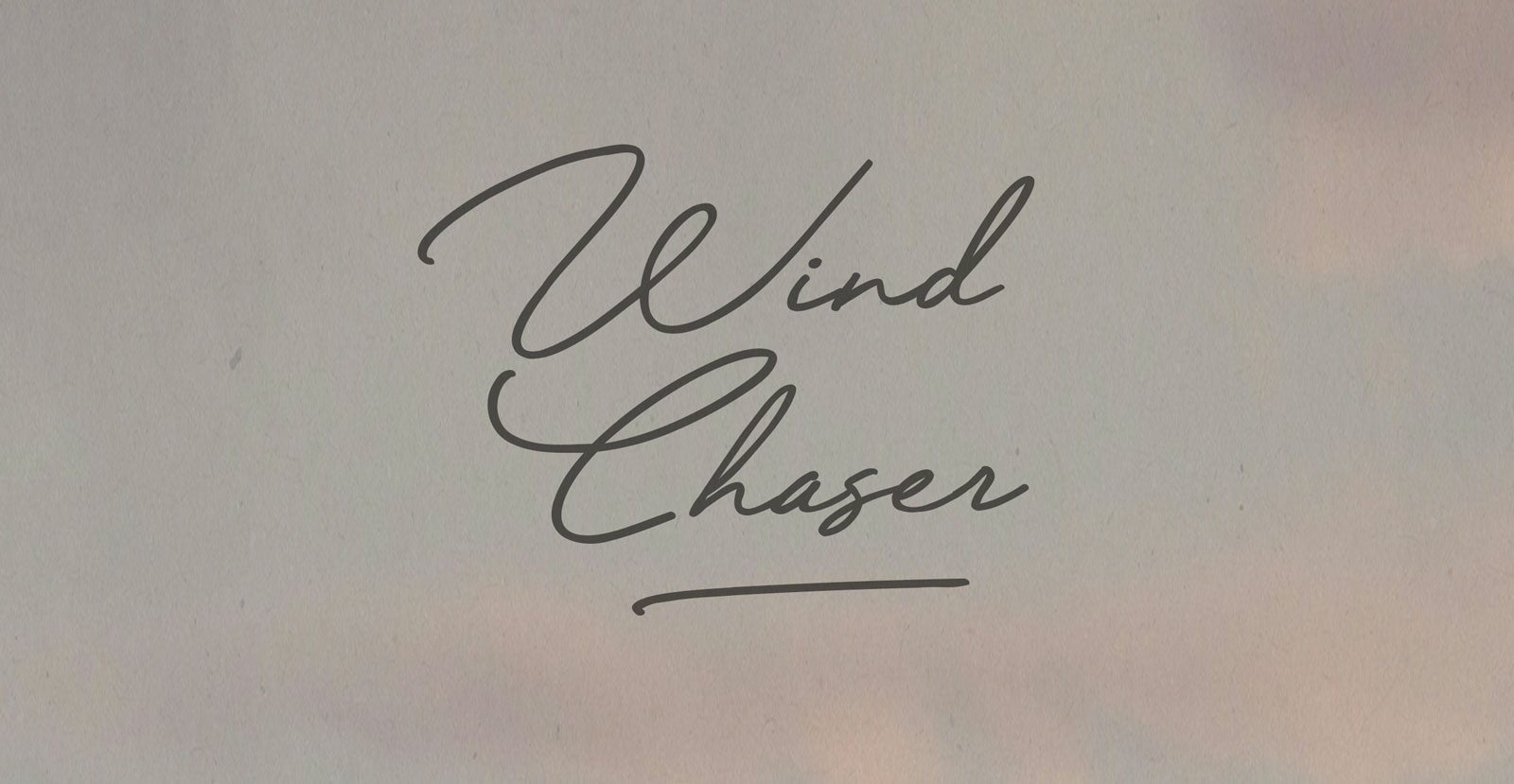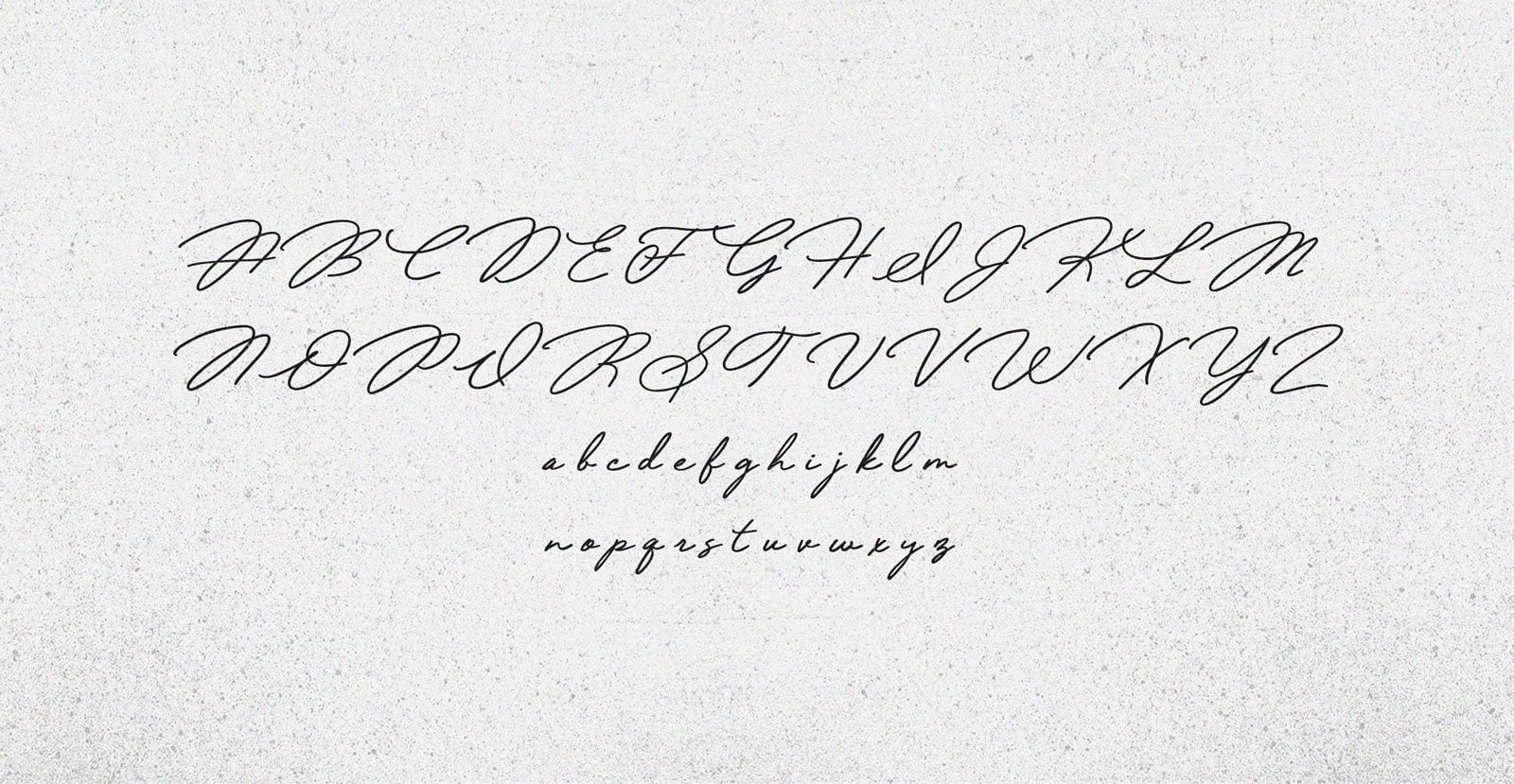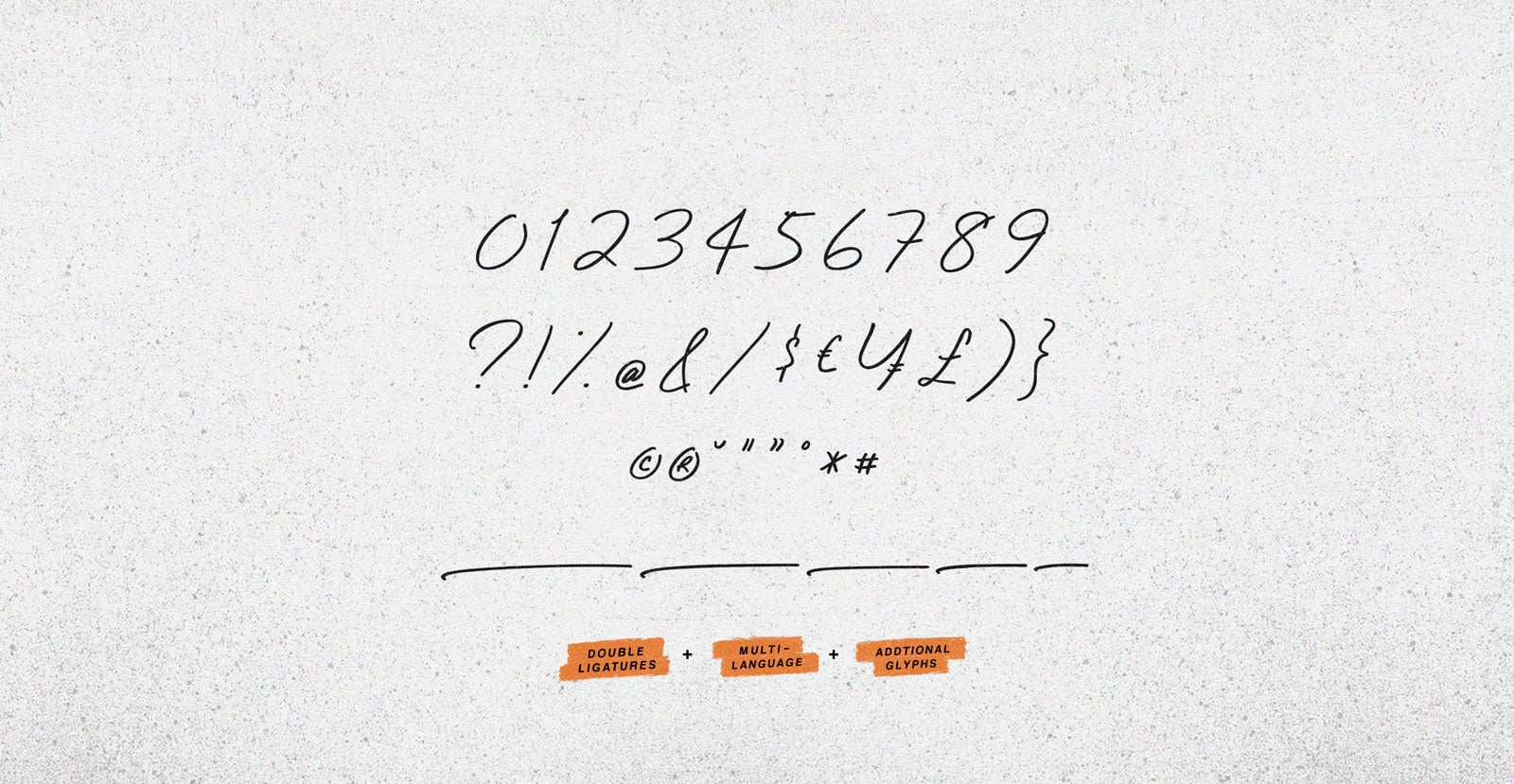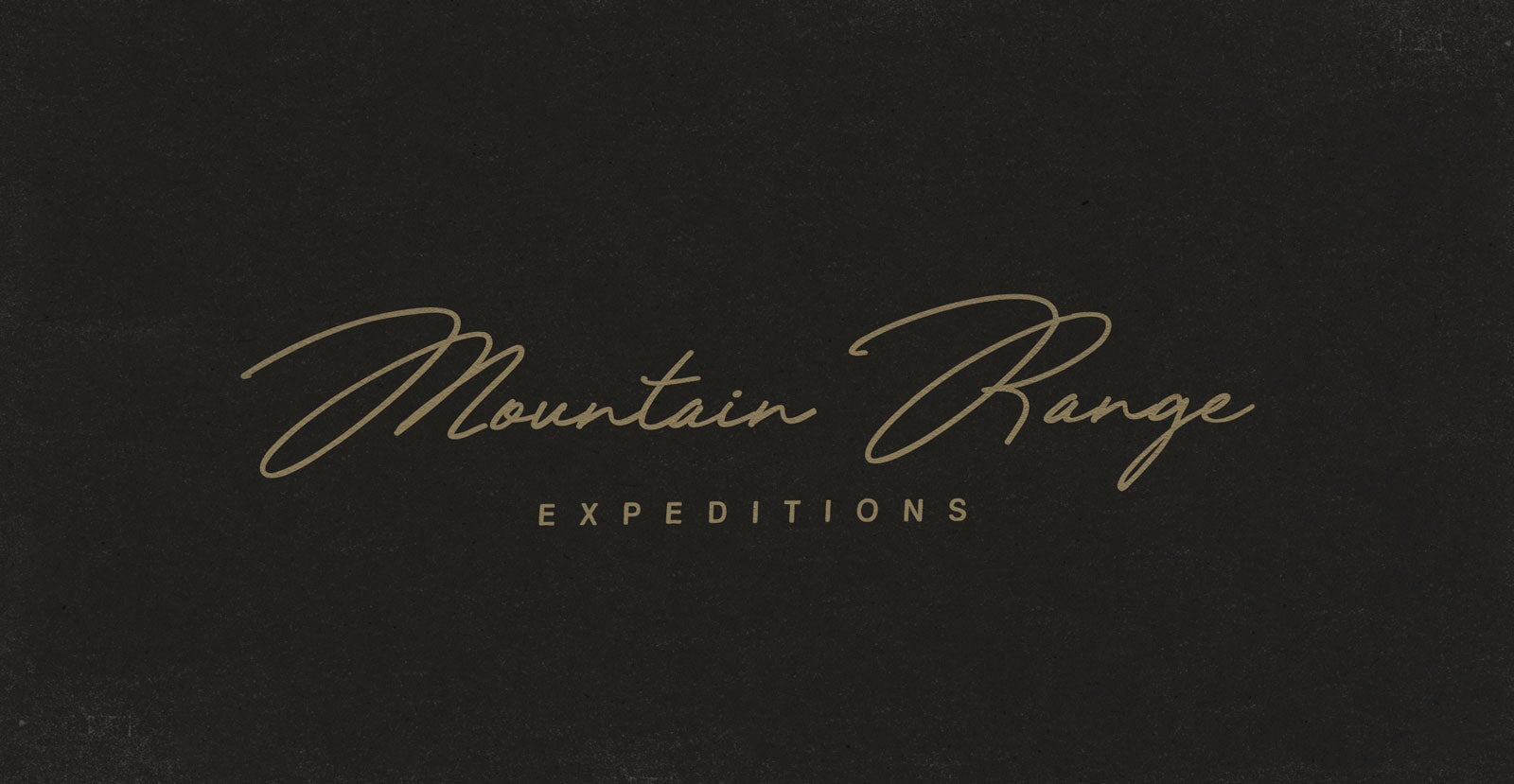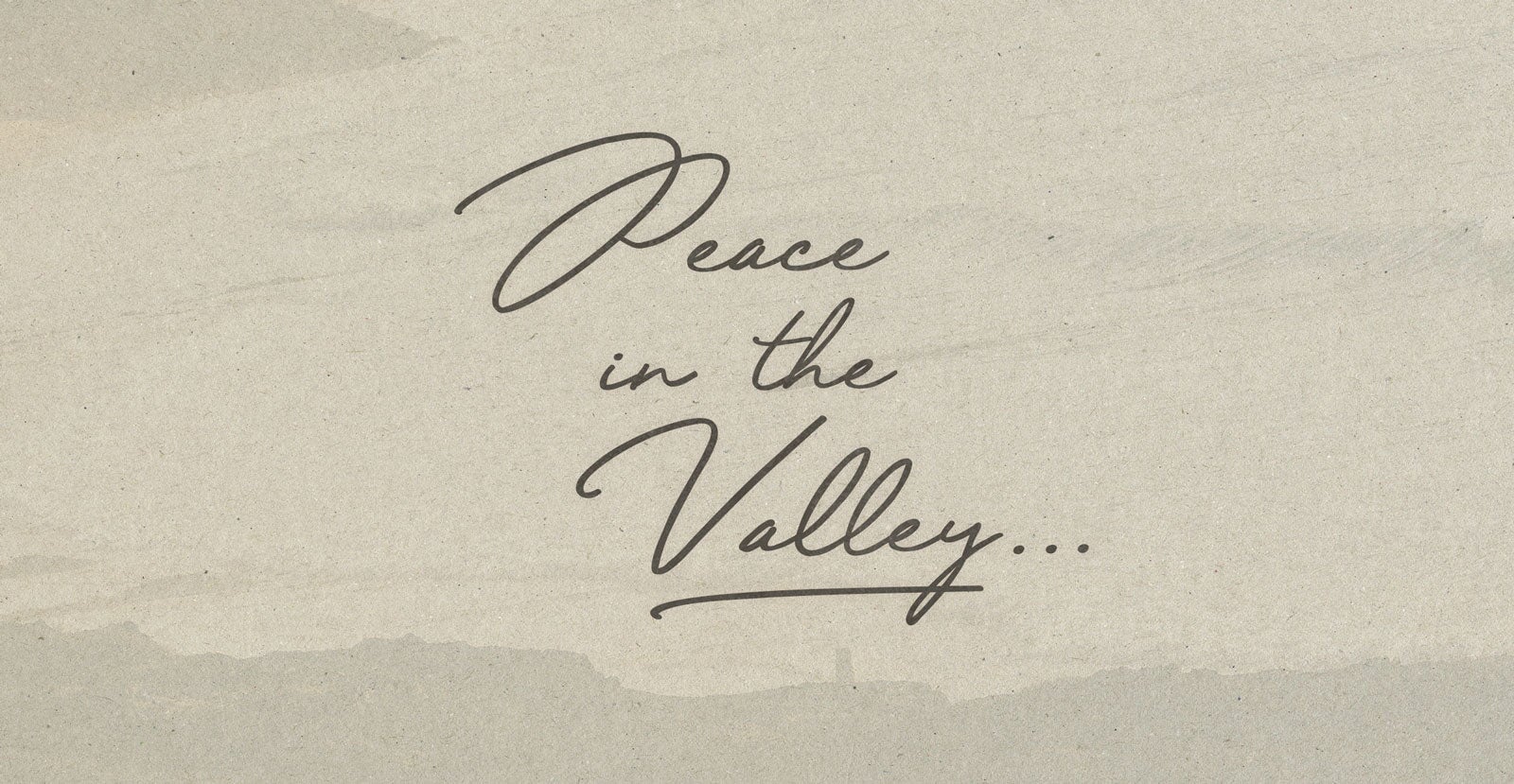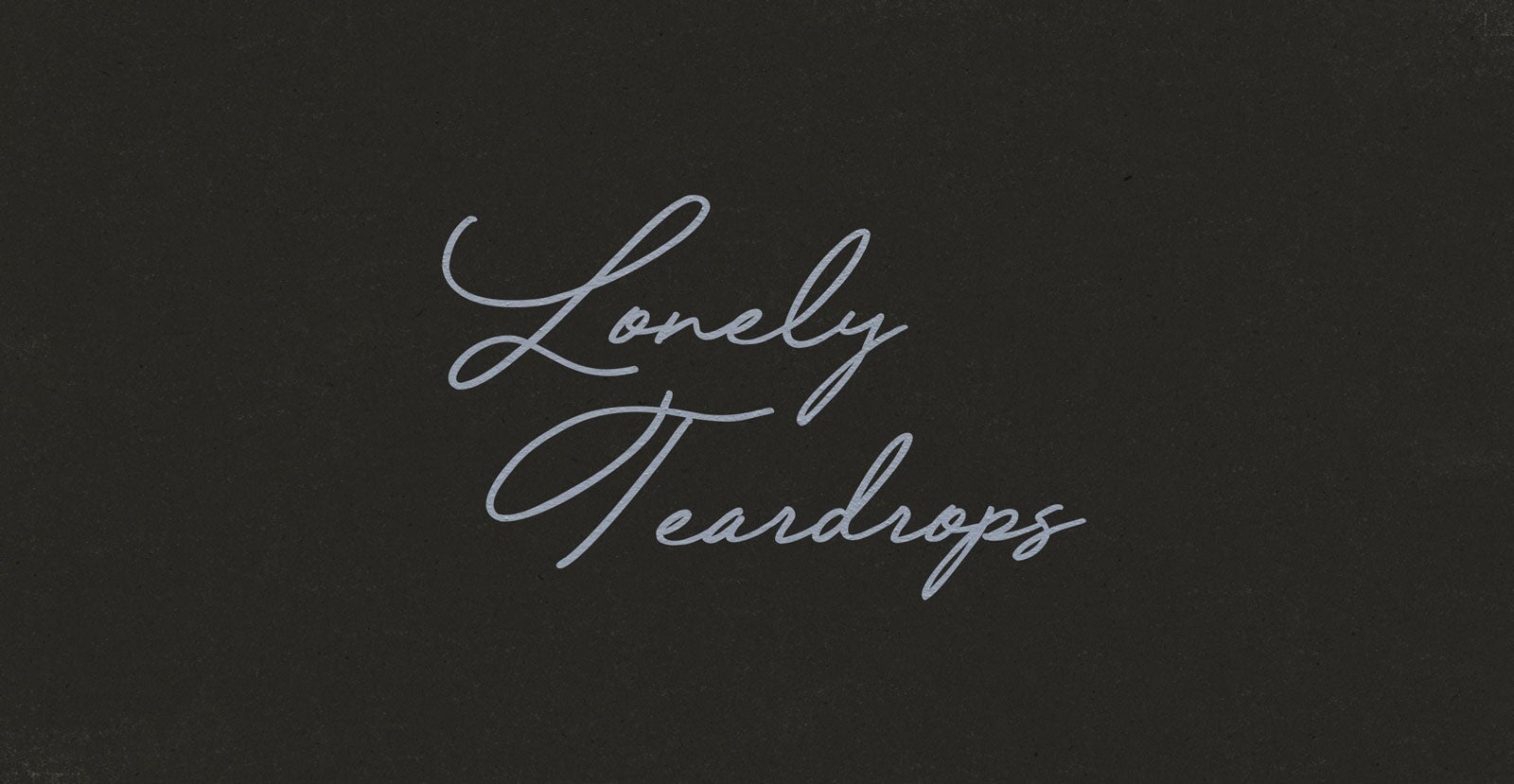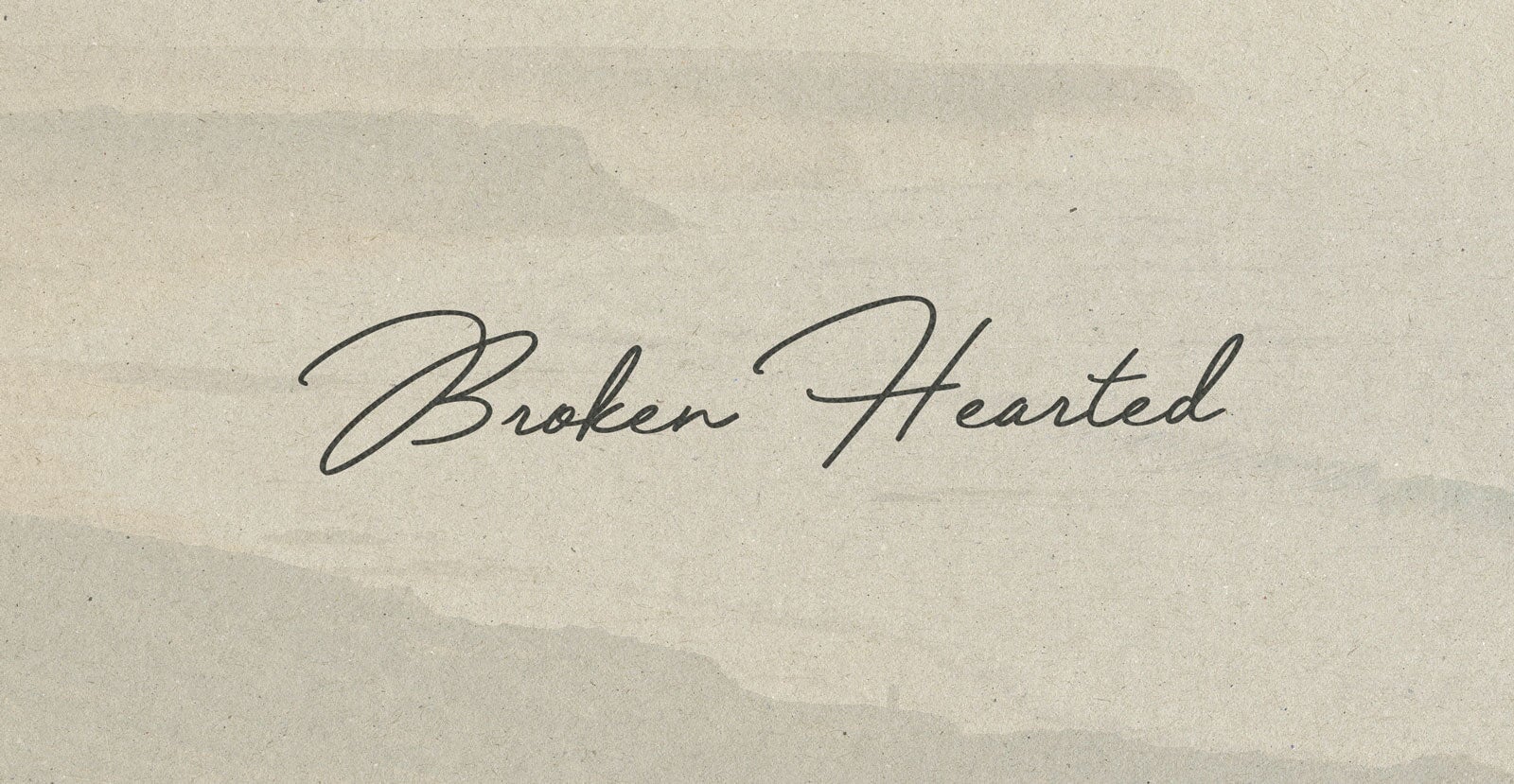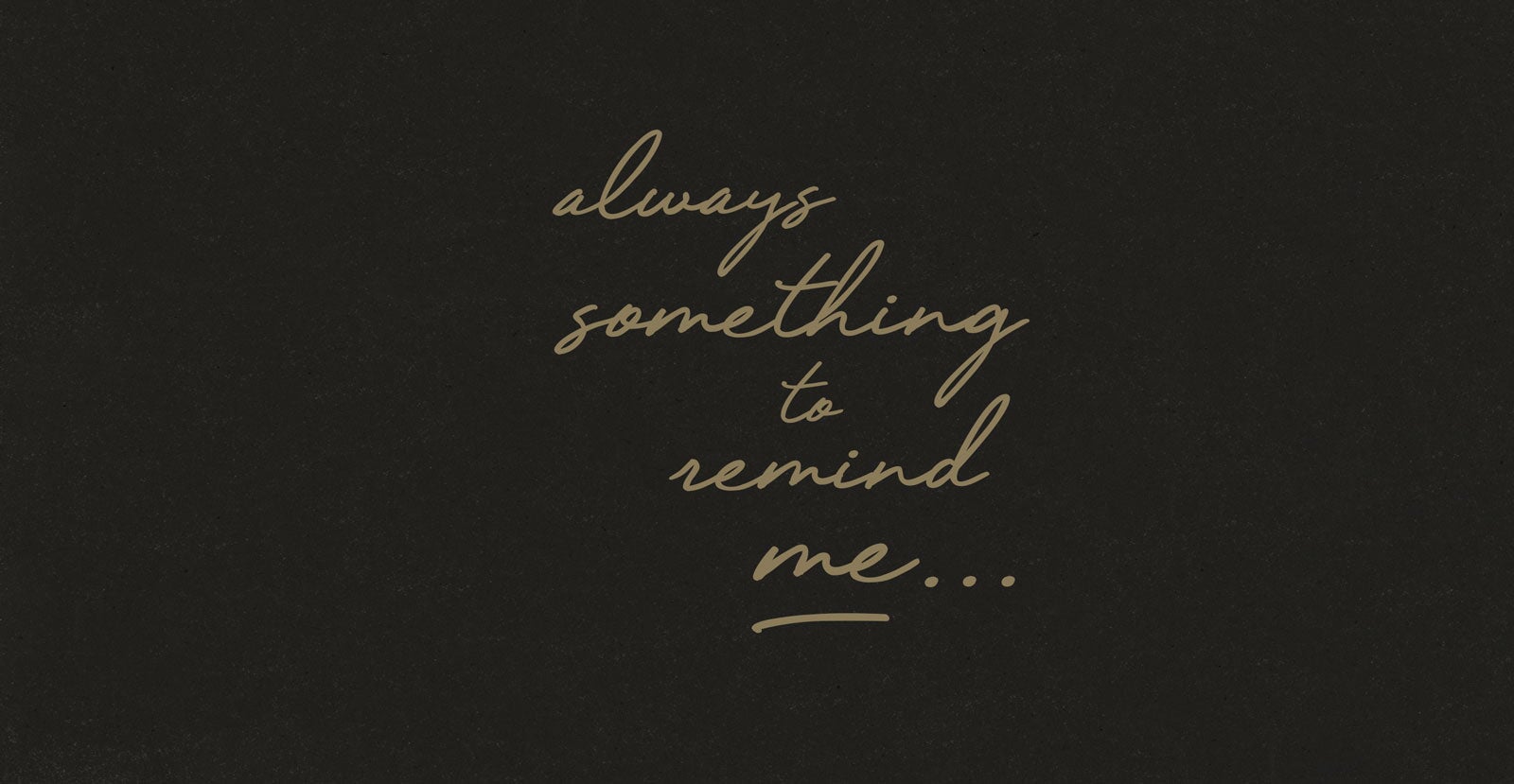
Wind Chaser
Handwritten Pen Script Font
Wind Chaser moves with restless energy. Light on its feet, always reaching, never still. It follows no path, just the pull of momentum. Elusive, instinctive, and full of motion.